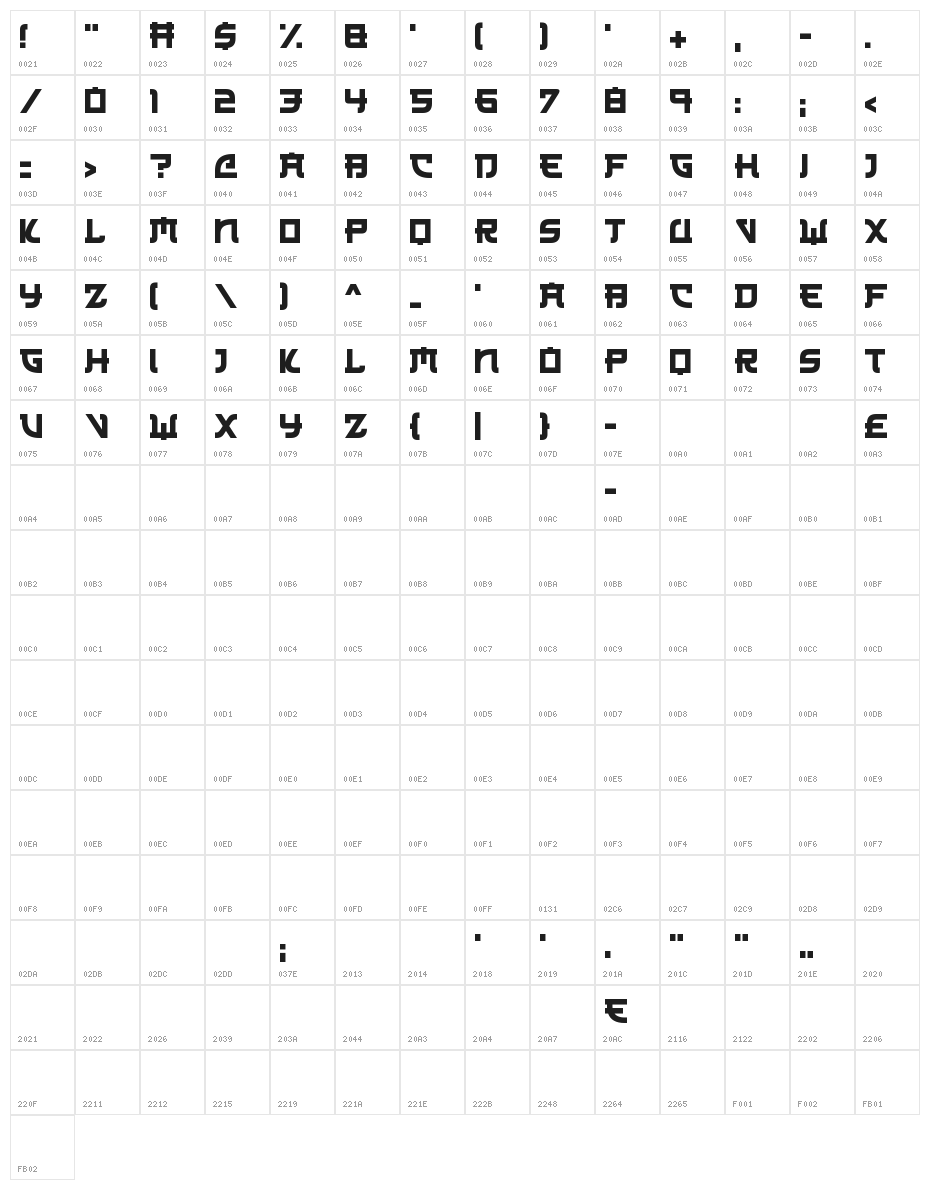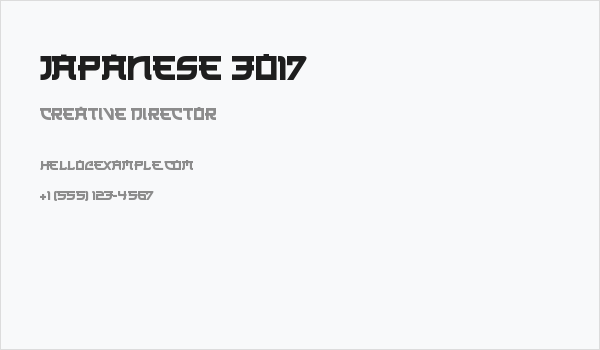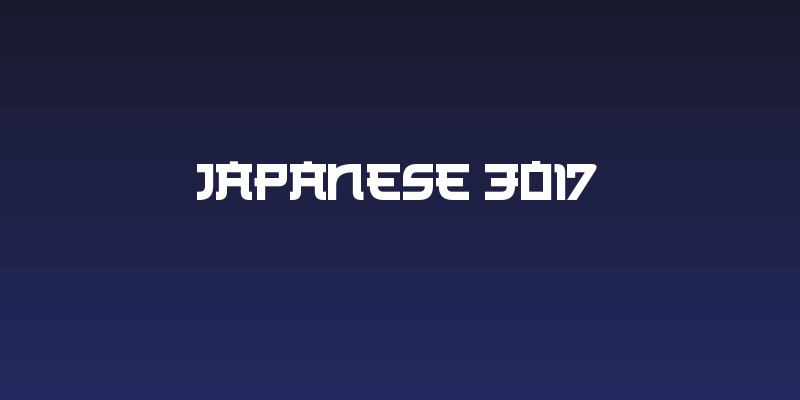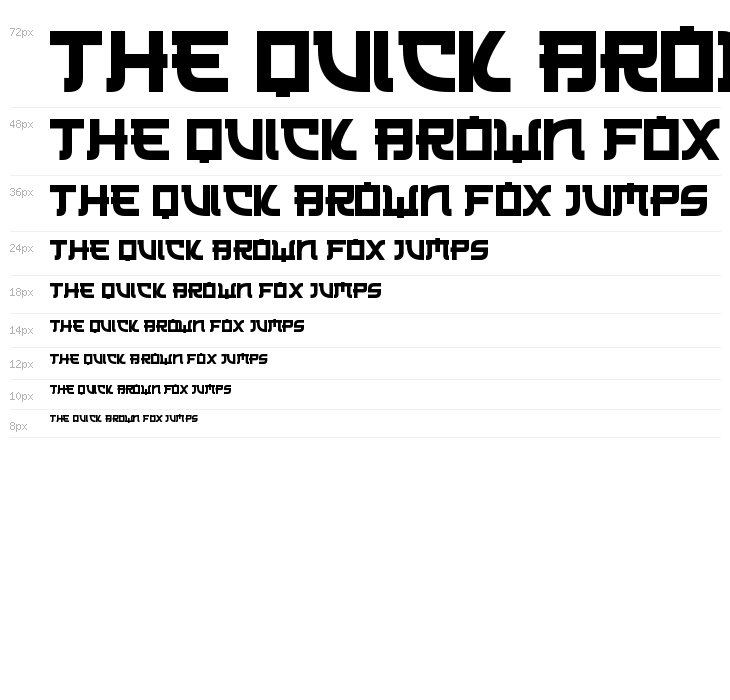
Japanese 3017 Font
| Style général | Futuristic |
| Projets proposés | Ideal for sci-fi themed posters, video game graphics, tech branding, and digital media. |